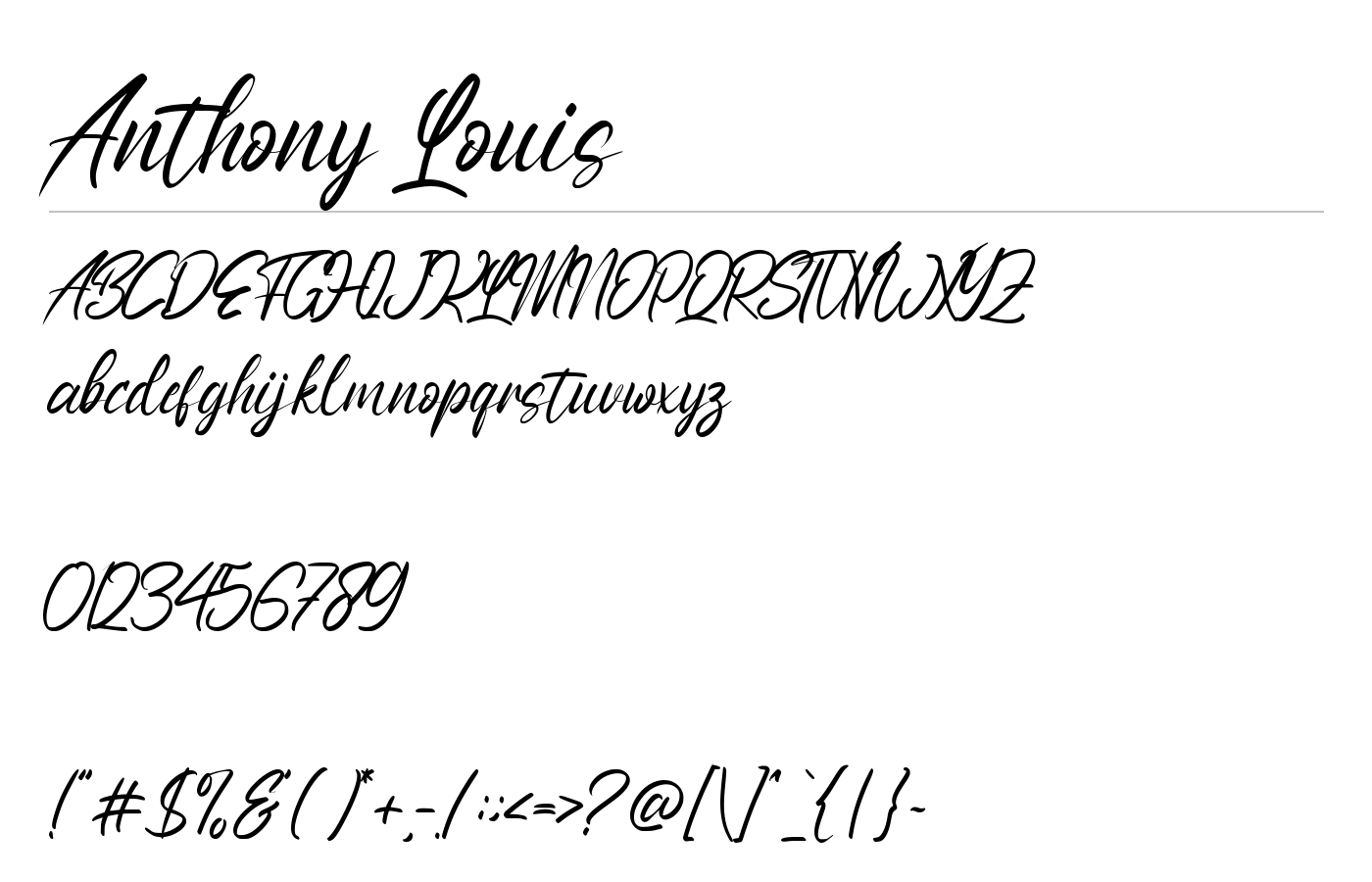
Anthony Louis is a sleek, elegant script font that mimics natural handwriting with smooth, flowing strokes and a refined, airy feel. Its slender, slightly slanted letterforms and consistent weight create a sophisticated yet approachable style, perfect for branding, invitations, and headline use where a touch of personal charm and elegance is desired.
Anthony Louis Font
About Anthony Louis Font